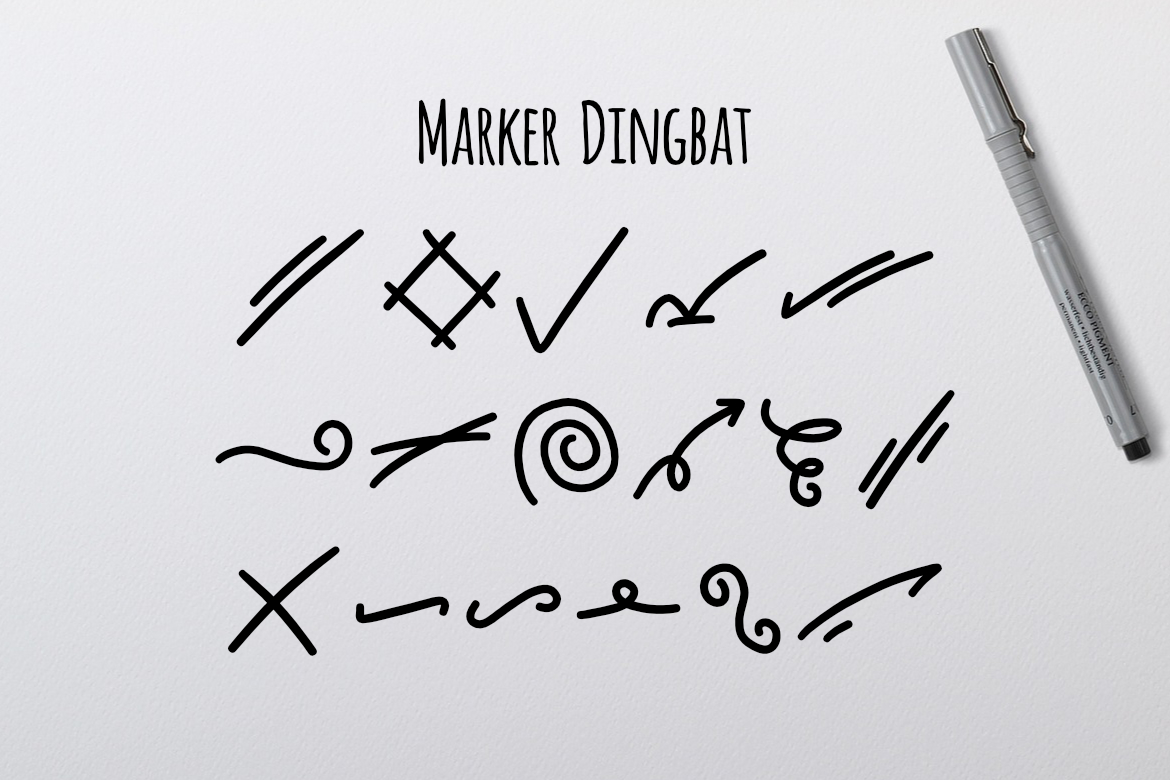
Marker Dingbat Font
About Marker Dingbat Font
Introducing the Marker Dingbat Font: Adding Cute and Fun Design Elements to Your Projects!
If you’re looking to infuse your designs with a cute and playful touch, the Marker Dingbat Font is the perfect choice. This fun dingbat set offers a wide range of adorable and well-crafted design assets that will instantly enhance your projects.
The Marker Dingbat Font features a delightful collection of cute and whimsical icons and symbols, all created with a marker-like style. From cute animals and everyday objects to expressive facial expressions and decorative elements, this font offers a variety of options to add visual interest and charm to your designs.
The versatility of the Marker Dingbat Font allows you to use these charming icons in a variety of ways. Create borders, frames, patterns, or even use them as standalone design elements. Mix and match different characters to create unique compositions and make your designs truly stand out.
With the Marker Dingbat Font, you can add a personal and handmade touch to your projects. The marker-like style gives a sense of authenticity and warmth, making your designs feel more approachable and relatable. Whether you’re designing for children or simply want to bring a whimsical flair to your work, this dingbat set is a fantastic choice.